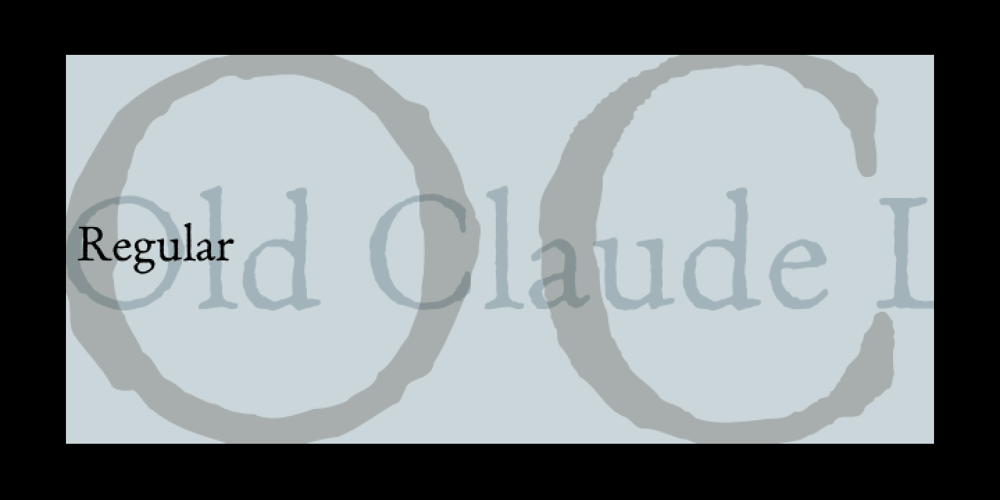
Old Claude LP Font Family was designed by Claude Garamond, Garrett Boge, Paul Shaw and published by LetterPerfect. Old Claude LP contains 2 styles and family package options. Old Claude was drawn by Paul Shaw to simulate an old cut of the classic (Claude) Garamond type designs of the 16th & 17th centuries. The pronounced rough edges and coarse letter shapes create the effect of letterpress printing with old foundry type onto handmade paper. The companion Old Claude Expert includes small caps and old-style figures. This “antiqued” design works equally well for both text and display.